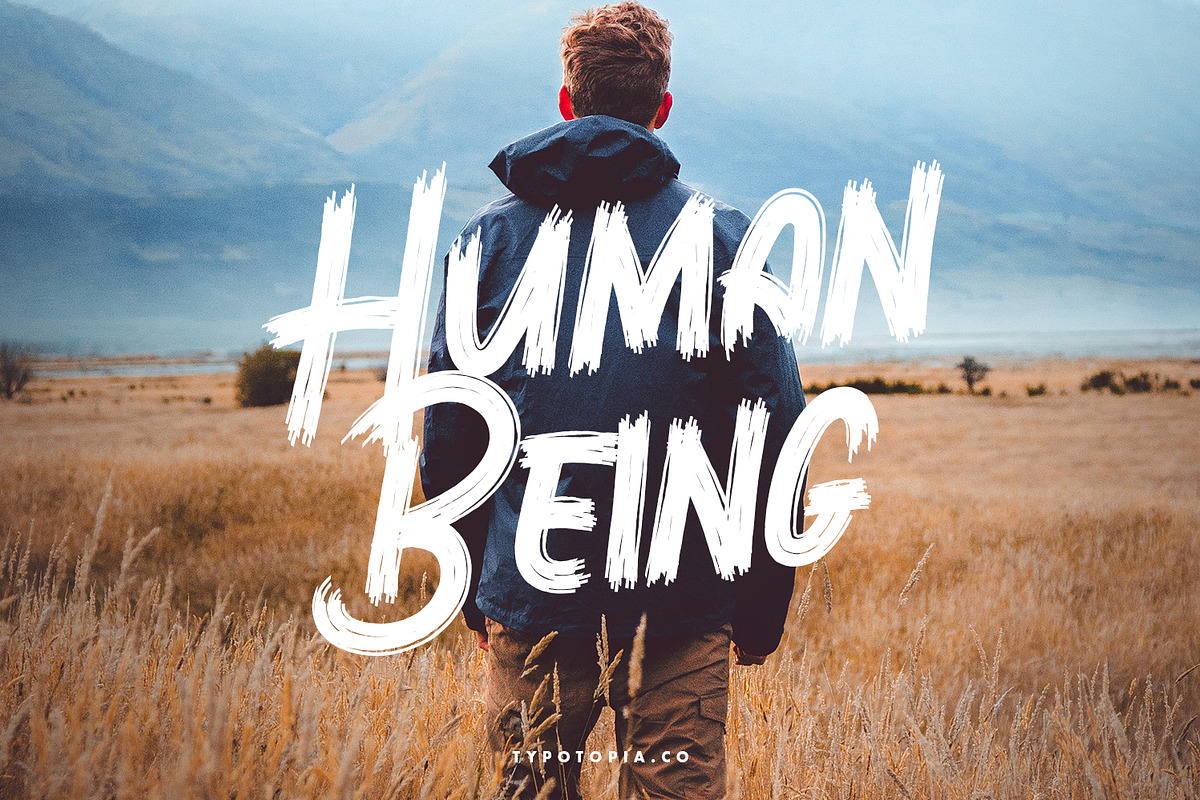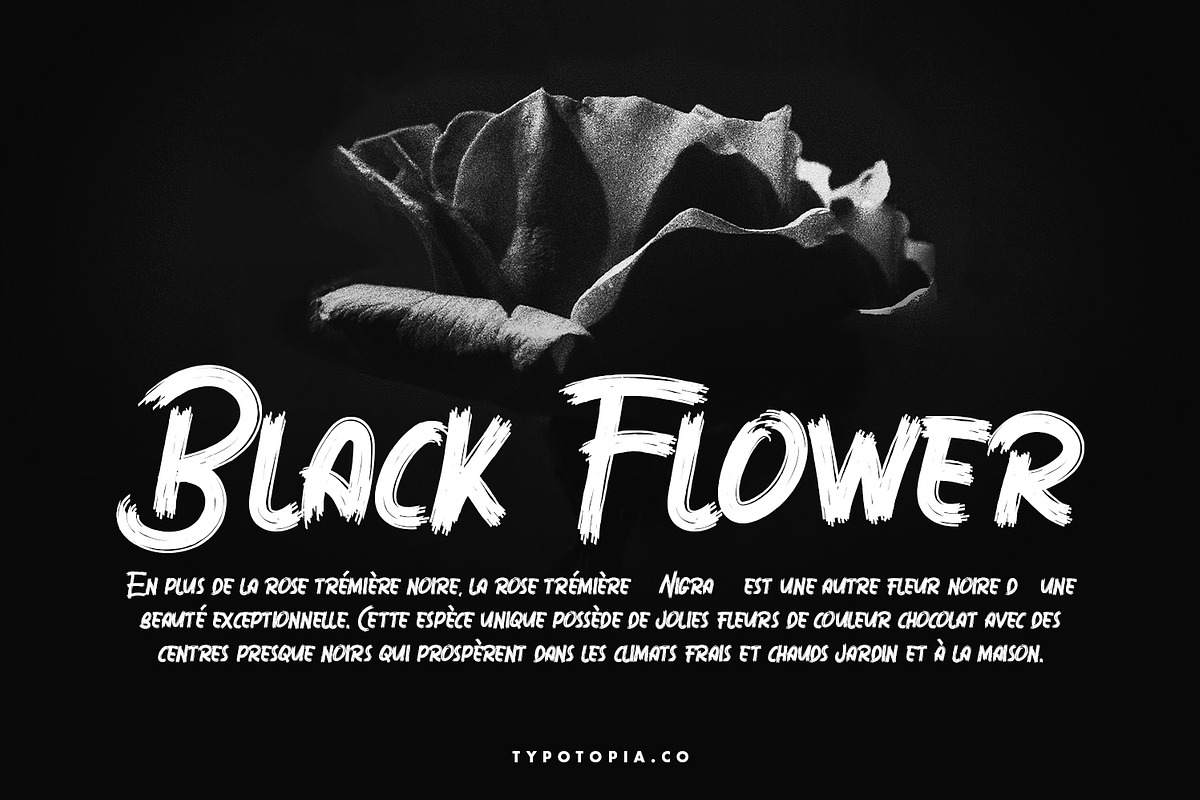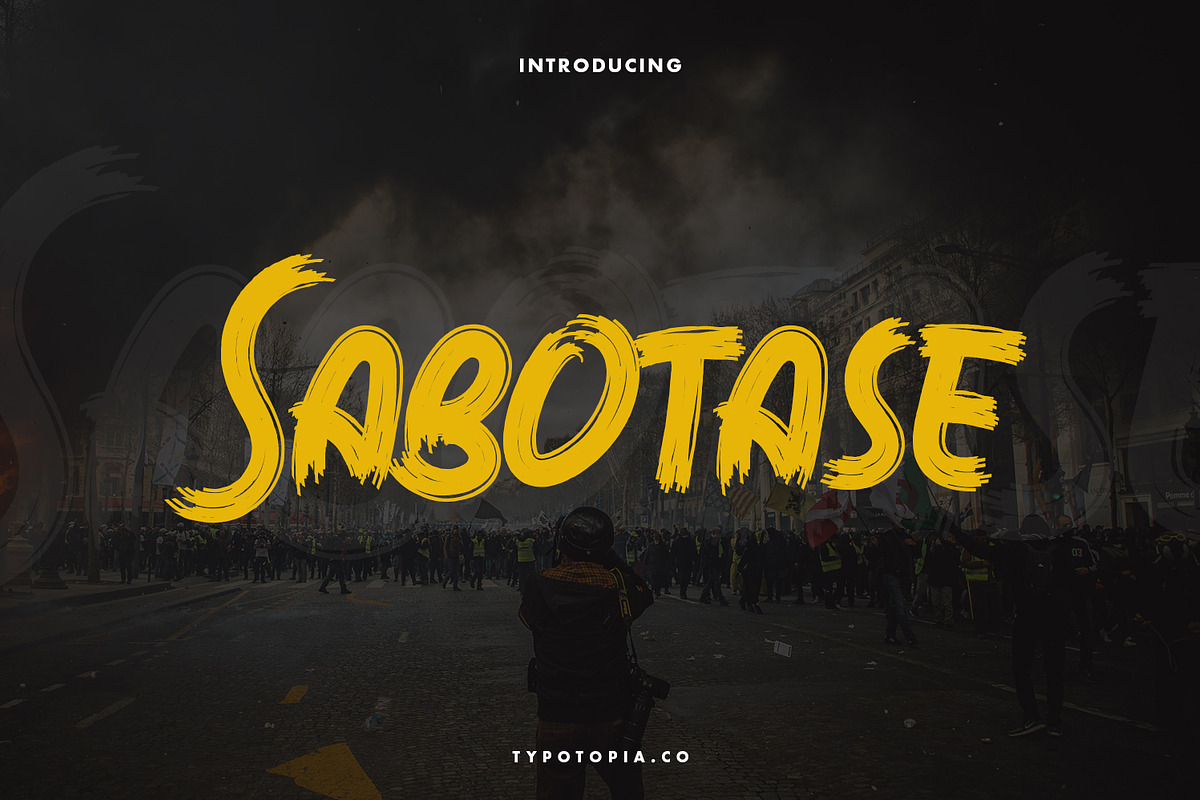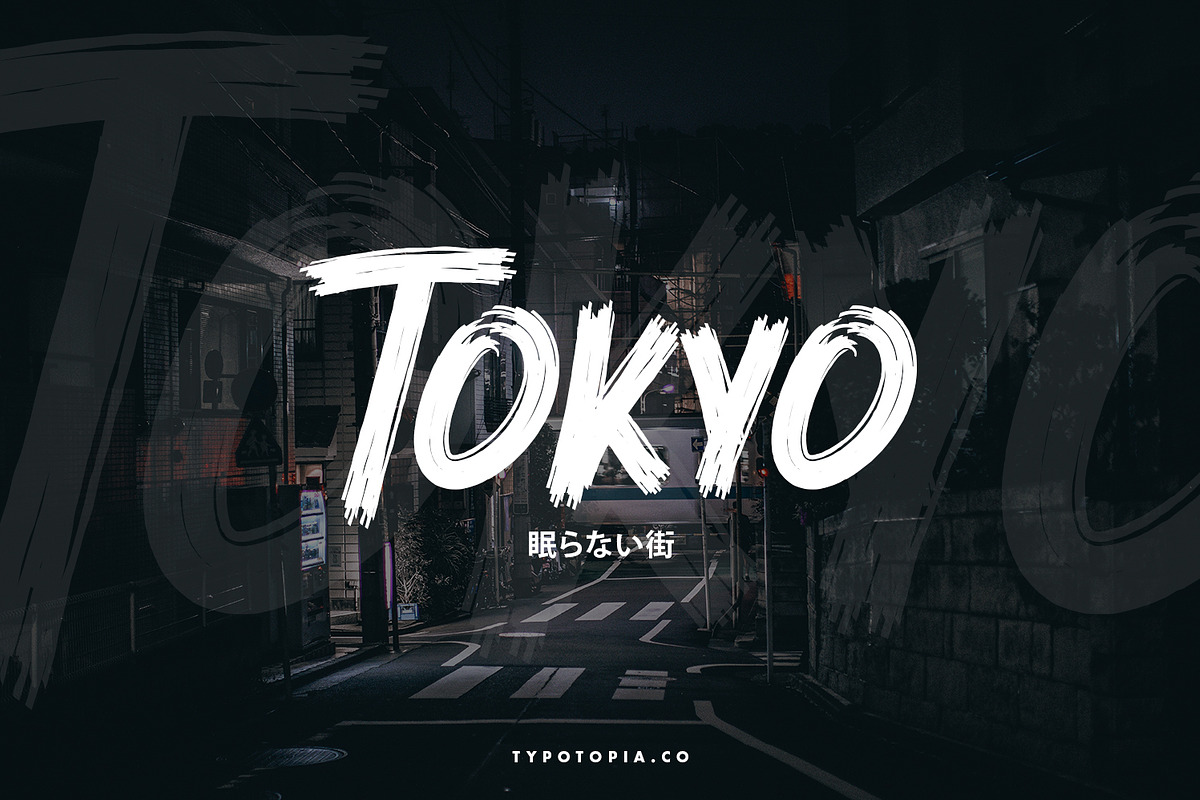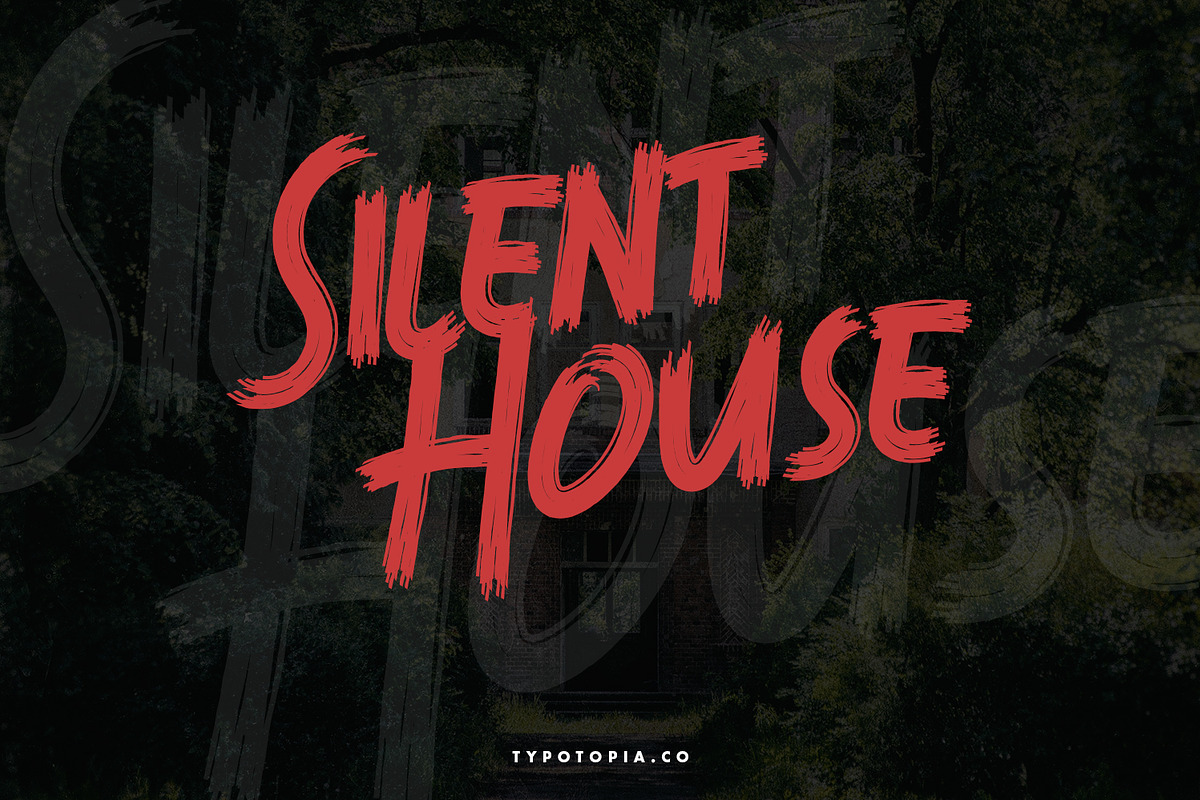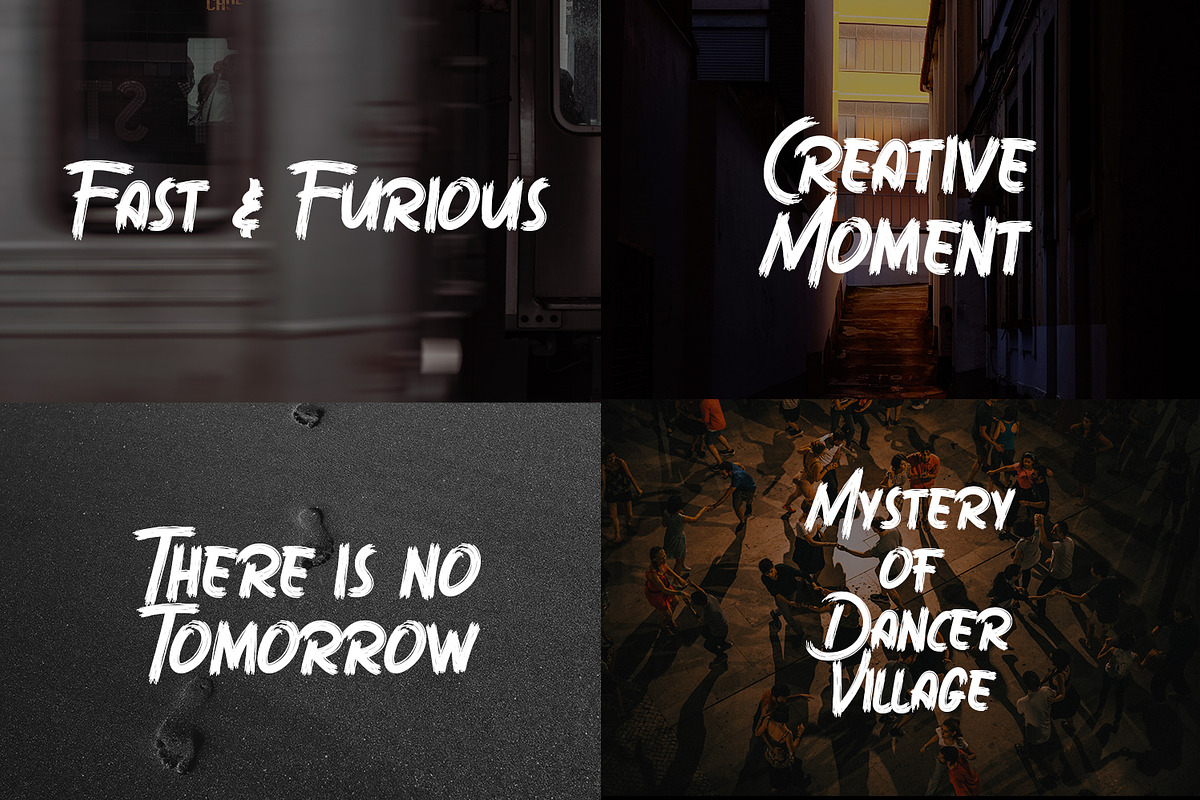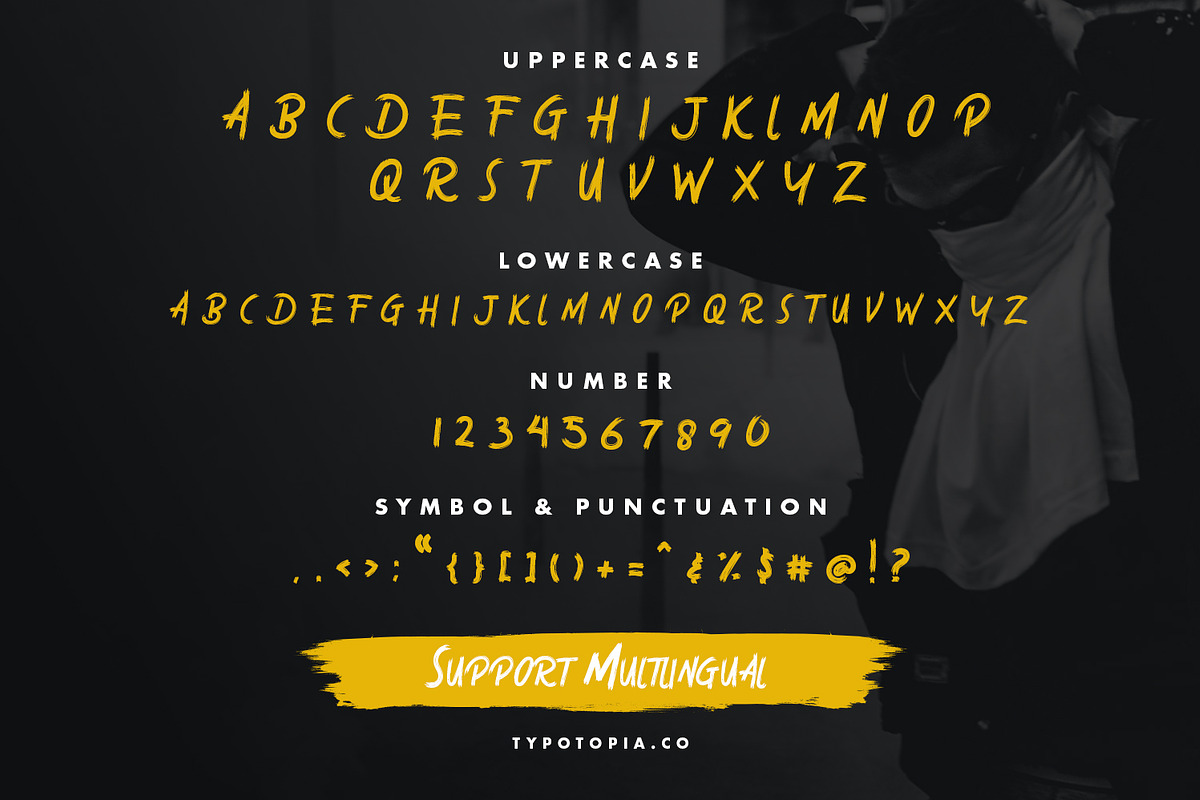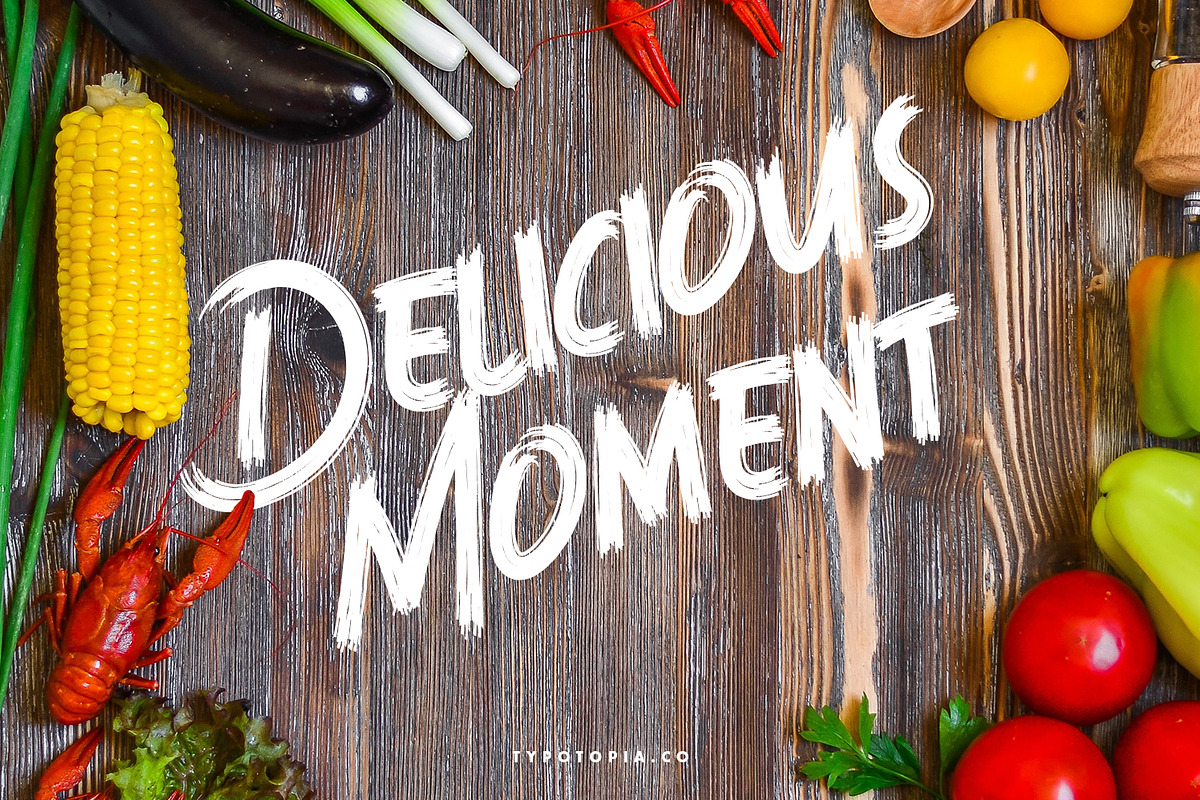
Sabotase - The Brush Font
We're Proudly Introduce to all of you, Sabotase, Creepy Font. This Typeface Comes with 2 Style of Fonts that you can use.
Sabotase is the great choice for several purpose, it suitable for for headline, logotype, apparel, invitation, branding, packaging, advertising etc.
Sabotase also Support Multilingual Feature for Foreign Language, here’s the list :
áäåãéèëìïîòöôøùüAÀÁÂÃÄÅEÈÉÊËIÌÍÎÏNÑOÒÓÔÕÖUÙÜÚÛYÝŸ?Ÿ
What are the main Features on This Fonts :
Uppercase & Lowercase letters